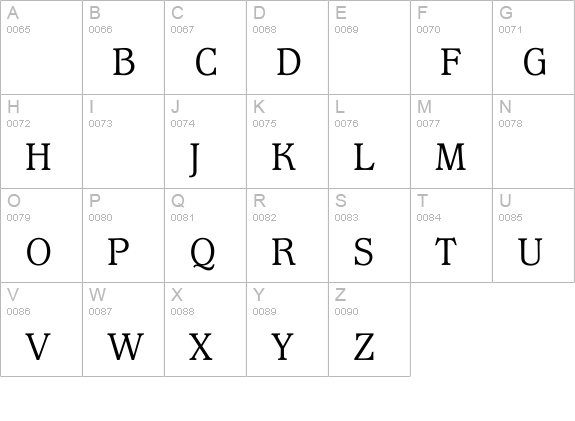
WaverlyLight Font Details
Introducing WaverlyLight, a captivating font that effortlessly combines elegance with modernity. With its sleek and refined design, WaverlyLight is the perfect choice for any project seeking a touch of sophistication. This font exudes a sense of lightness and grace, making it an excellent option for branding, invitations, logos, and more. Featuring clean lines and delicate curves, WaverlyLight is a true testament to the art of typography. Its versatility allows it to seamlessly adapt to various design themes, whether it be a minimalist aesthetic or a more ornate composition. The carefully crafted letterforms of WaverlyLight offer a harmonious balance between legibility and visual appeal, ensuring that your message is conveyed with clarity and style. What's even better is that WaverlyLight is freely available to download at FontsMarket.com. This means that you can easily access and incorporate this stunning font into your projects without any hassle. Whether you're a professional designer or someone simply looking to add a touch of sophistication to your personal creations, WaverlyLight offers you the opportunity to elevate your designs without breaking the bank. So why wait? Experience the seamless elegance of WaverlyLight today and transform your designs into works of art. Download this exquisite font for free at FontsMarket.com and let your creativity soar to new heights.